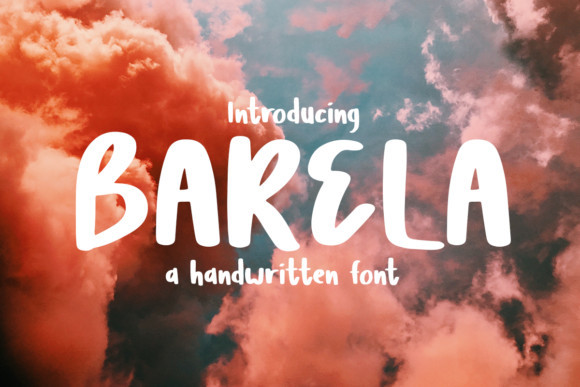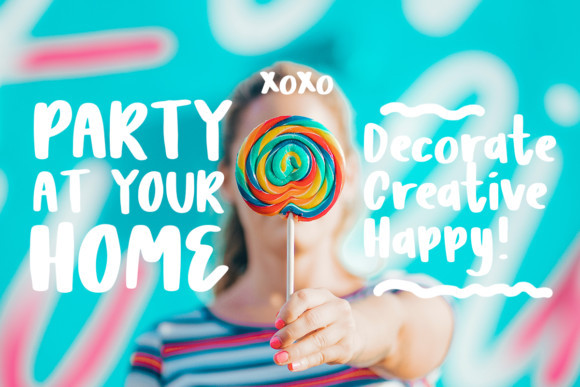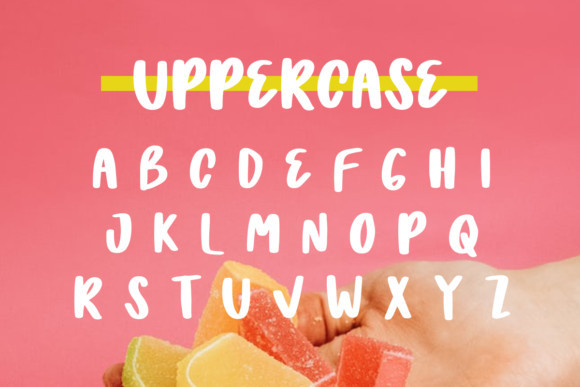
Barela Font
Barela is a sweet and quirky display font. Its natural and unique style makes it incredibly fitting to a large pool of designs. The only limit is your imagination!